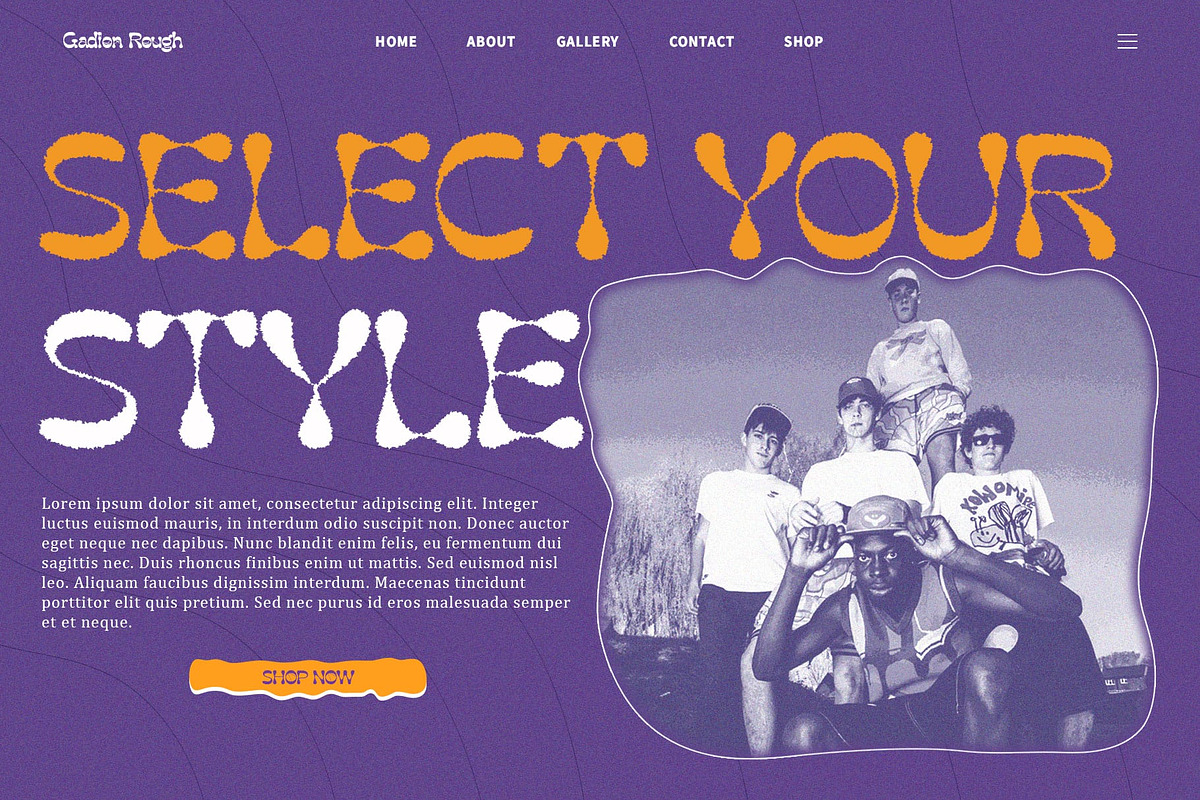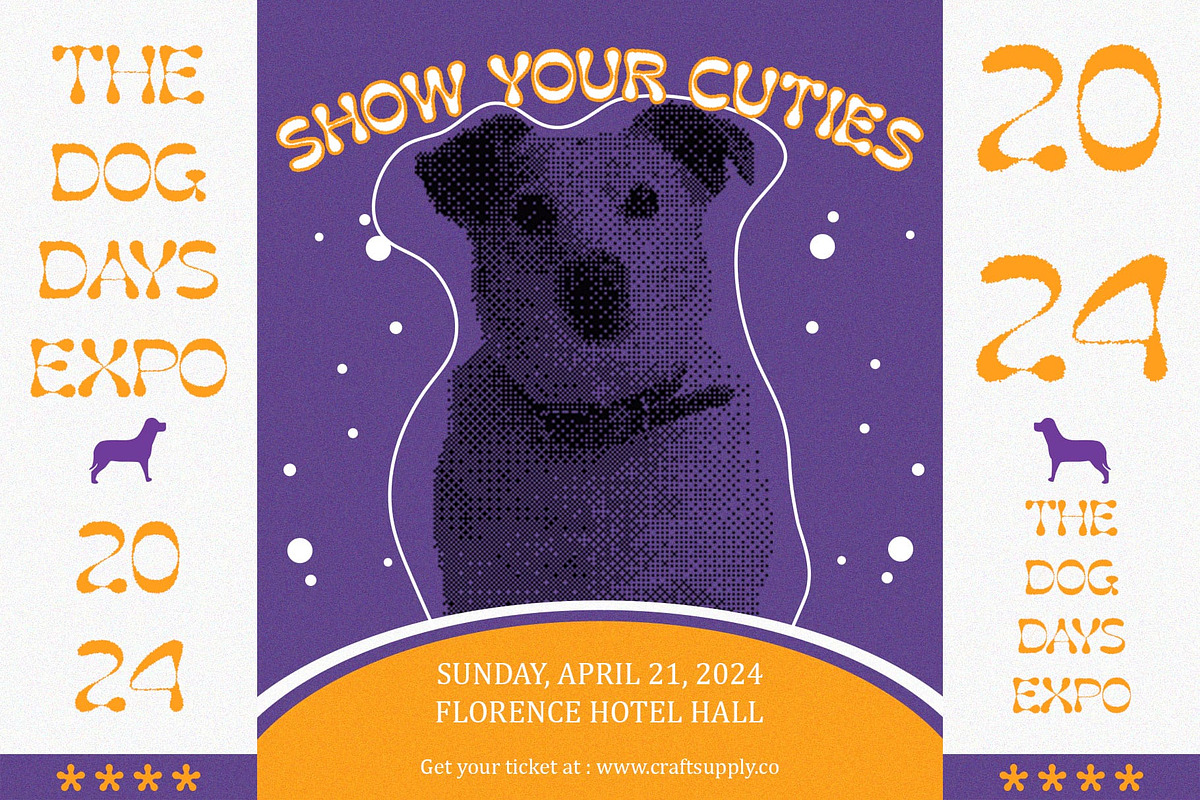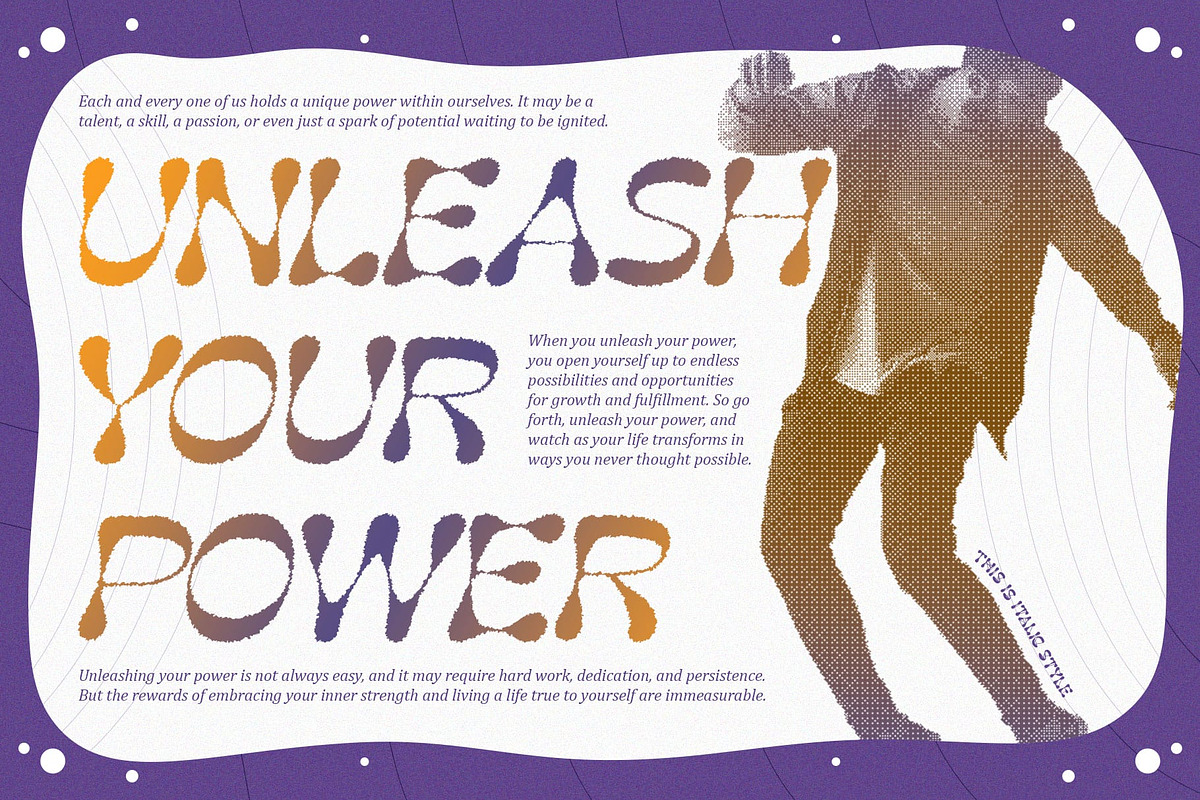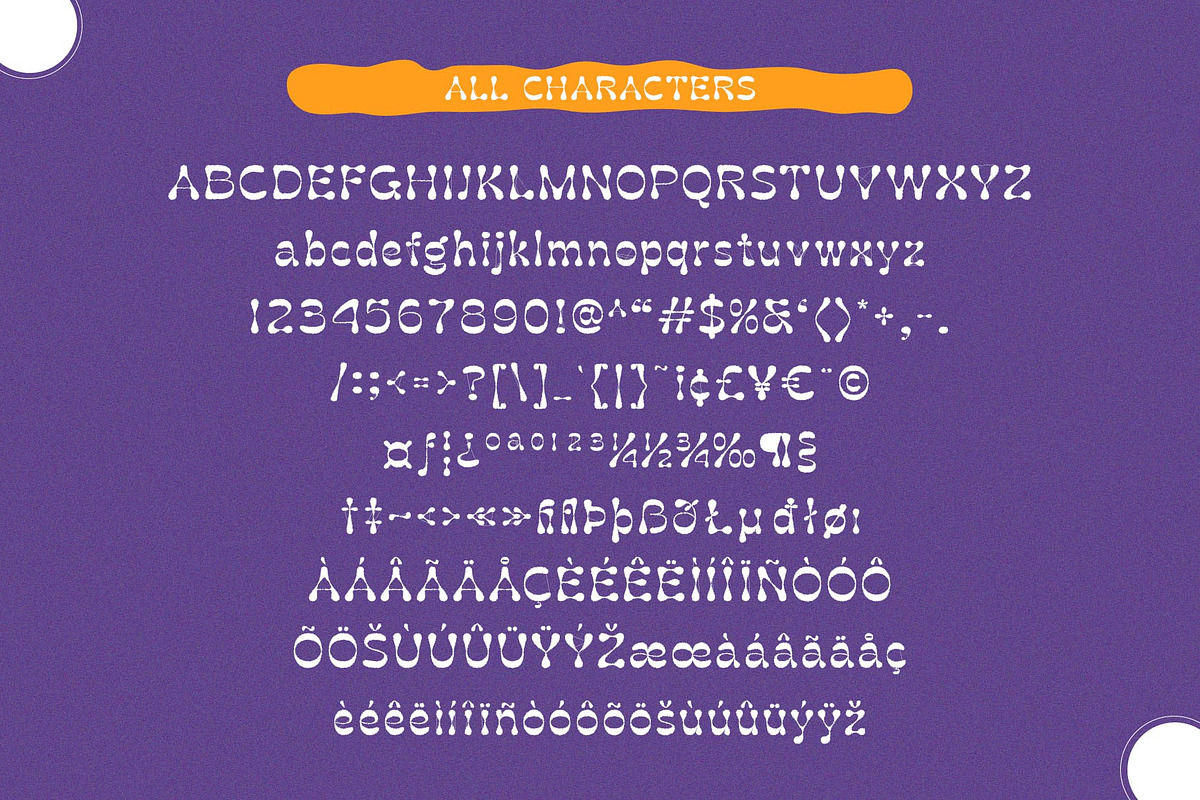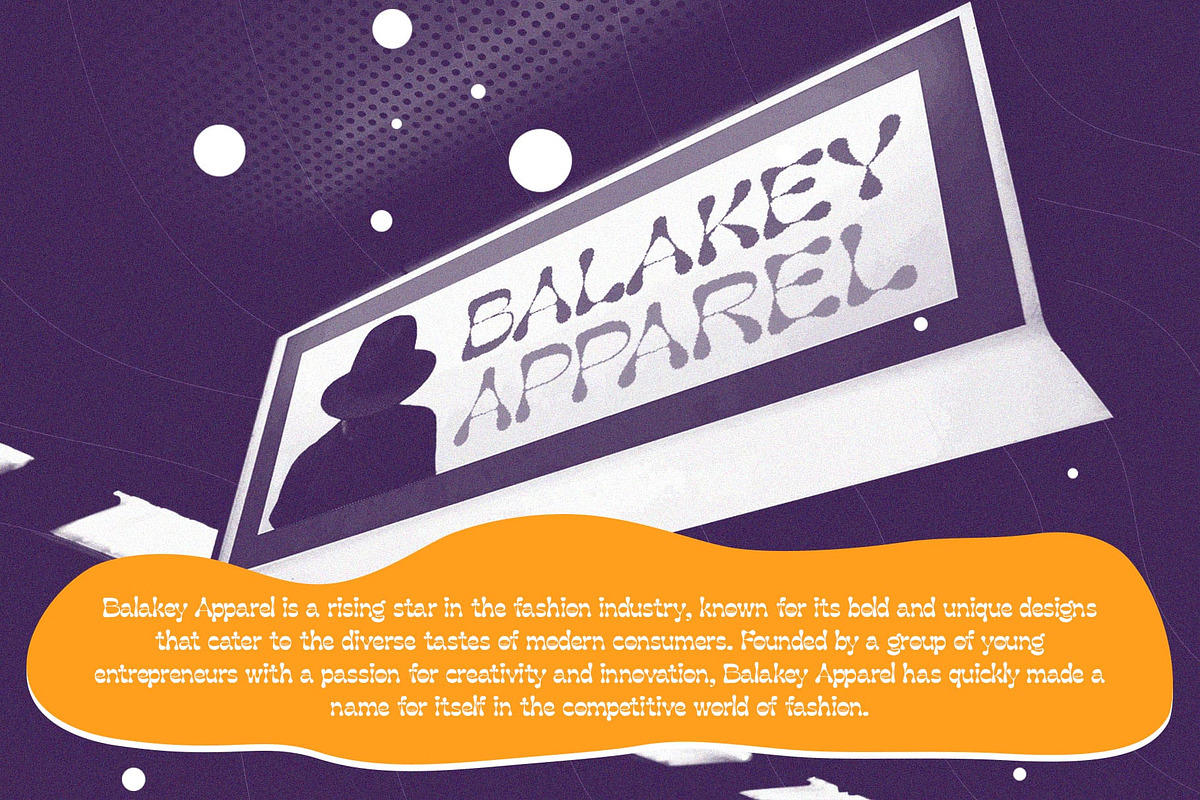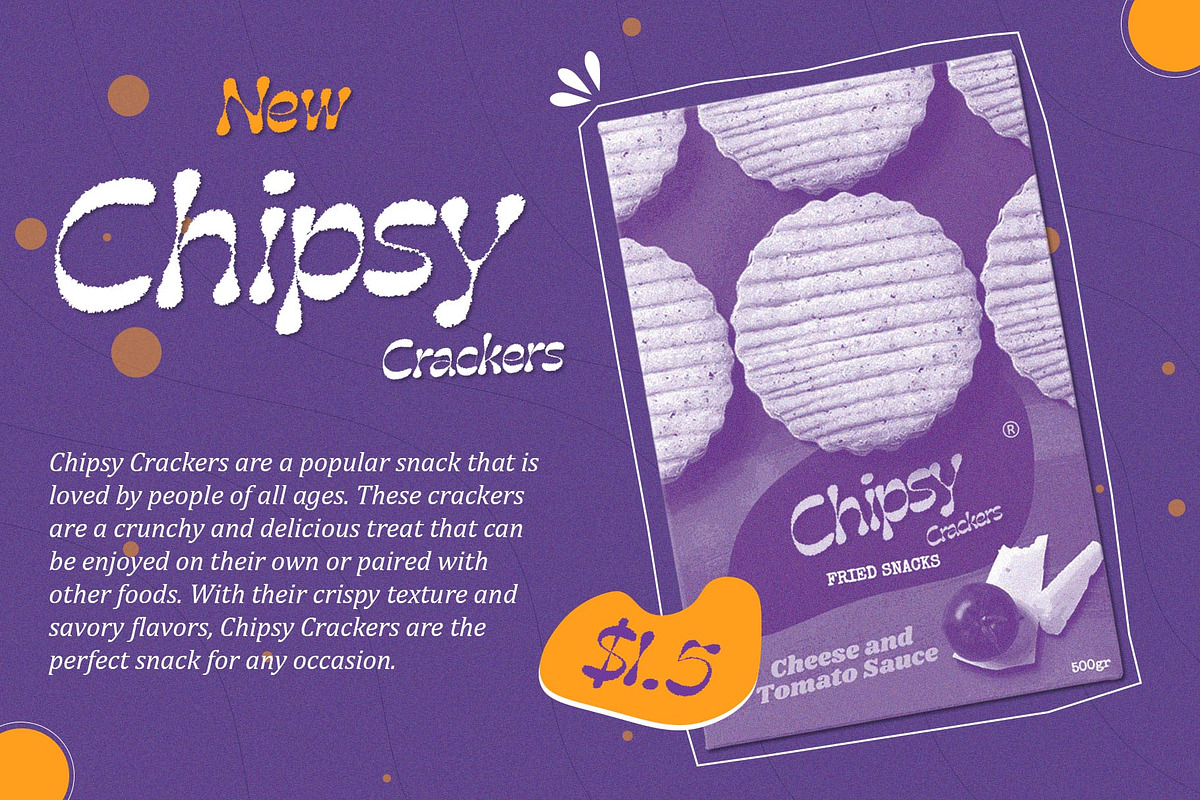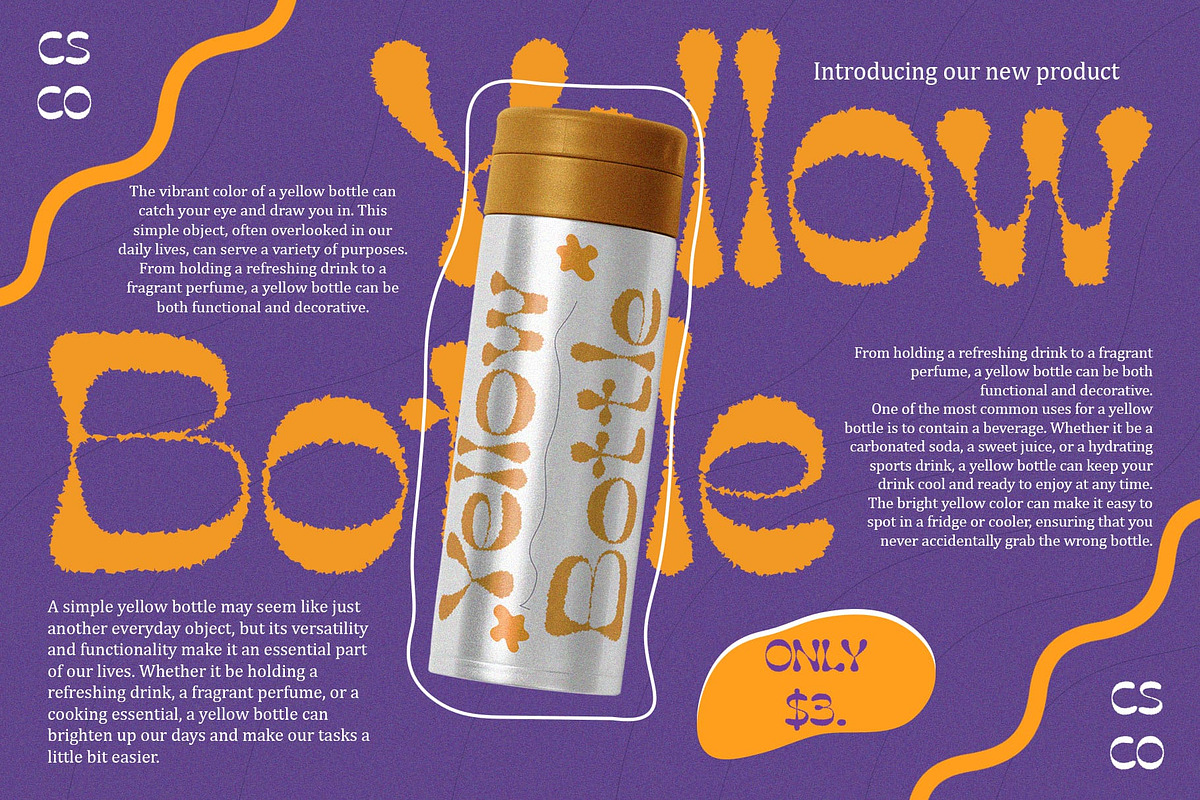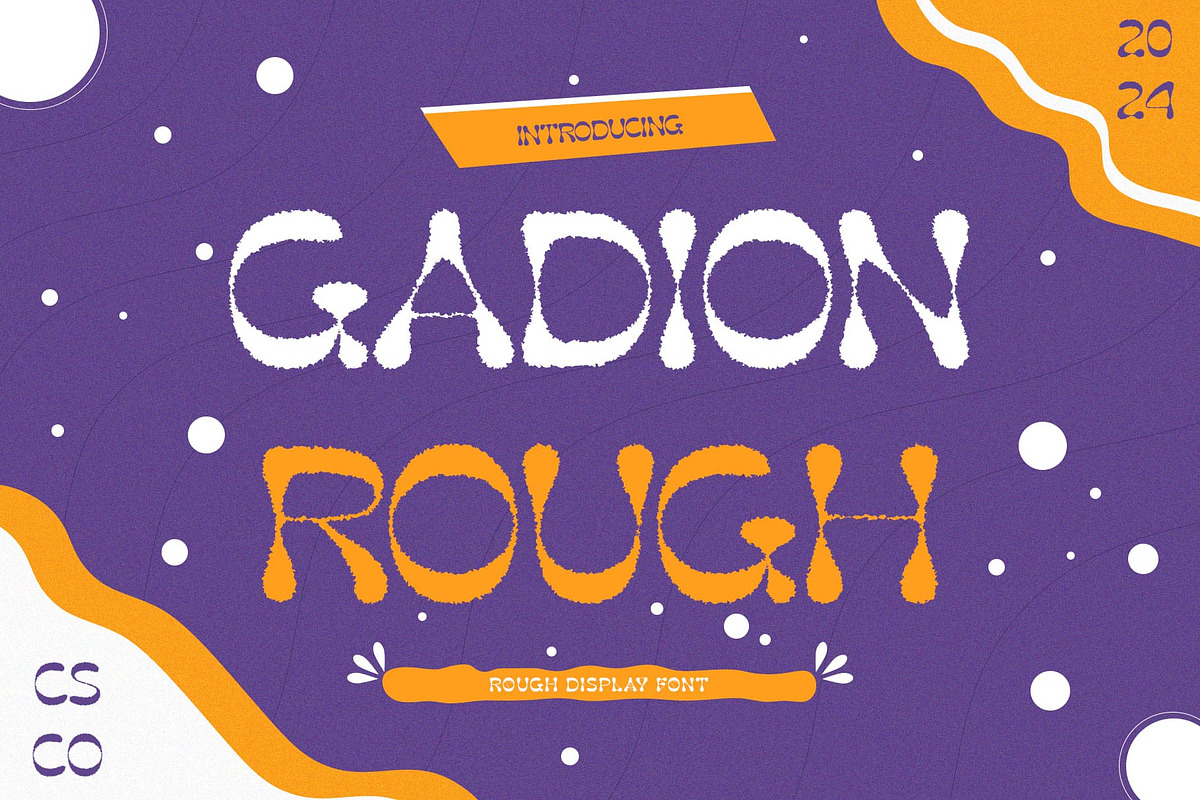
Gadion Rough
Gadion Rough: Vintage Charm in Bubble Form
Whimsical Bubble Aesthetics Gadion Rough delights with its playful bubble-inspired design, drawing inspiration from balloons and clouds. Its charming and whimsical appearance evokes a sense of nostalgia.
Retro Vibes with Rough Texture Embracing retro aesthetics, This font features a rough texture effect that adds depth and character to its bubbly form. This vintage-inspired touch enhances its overall appeal.
Perfect for Vintage and Retro Themes Tailored for vintage and retro display, This font shines in designs seeking a nostalgic touch. Whether for posters, packaging, or branding, its bubbly charm brings a vintage flair.
Unleash Nostalgia with Gadion Rough Step back in time and unleash nostalgia with This font. Its bubble-inspired form and rough texture effect offer endless possibilities for vintage-themed projects, inviting designers to evoke retro charm with every use.
Nostalgic Bubble Typography This font captures the essence of nostalgia with its whimsical bubble design and rough texture effect. Perfect for vintage and retro themes, it adds charm and character to any design seeking a nostalgic touch.